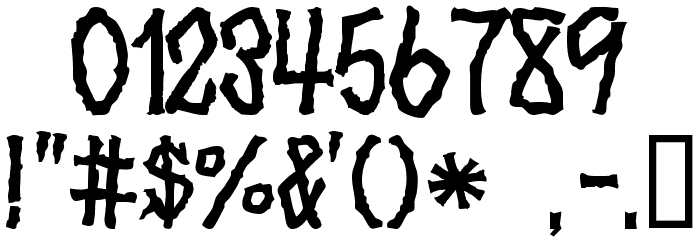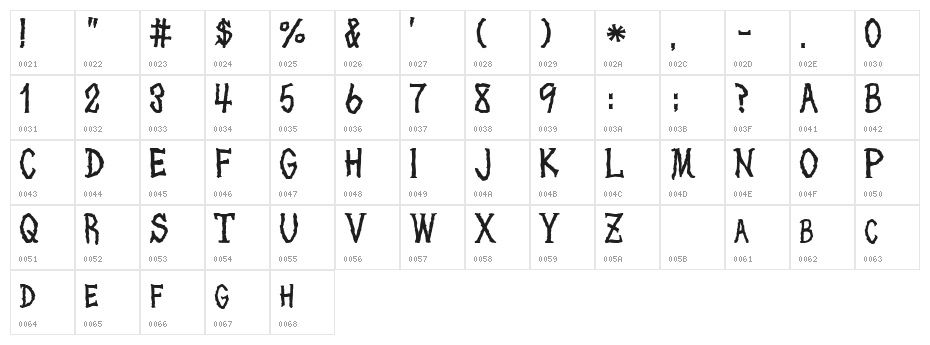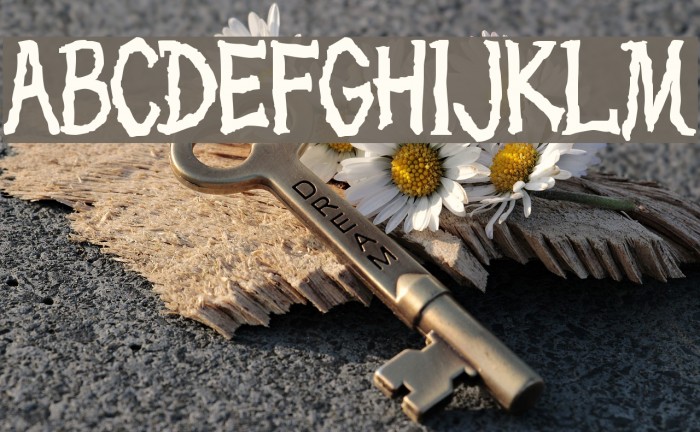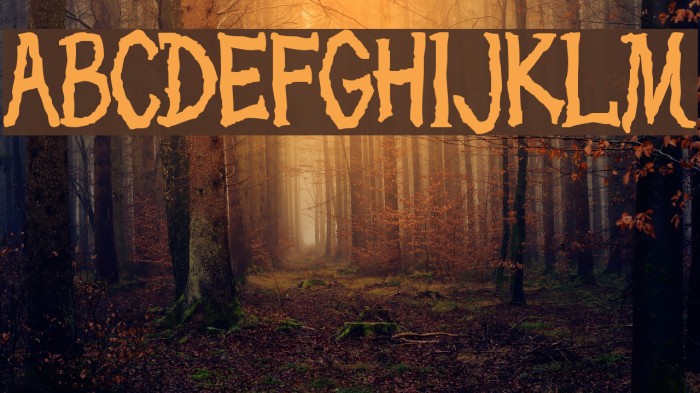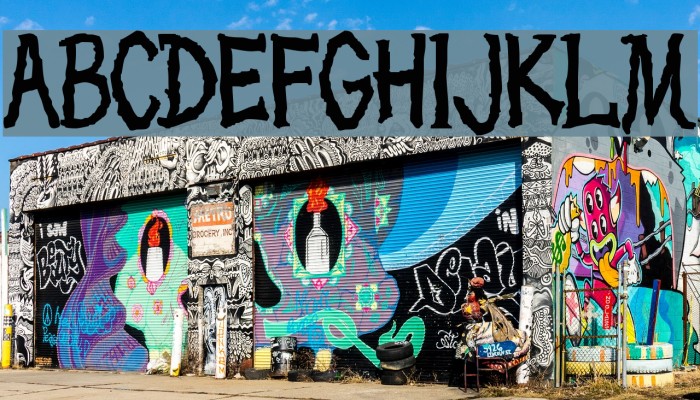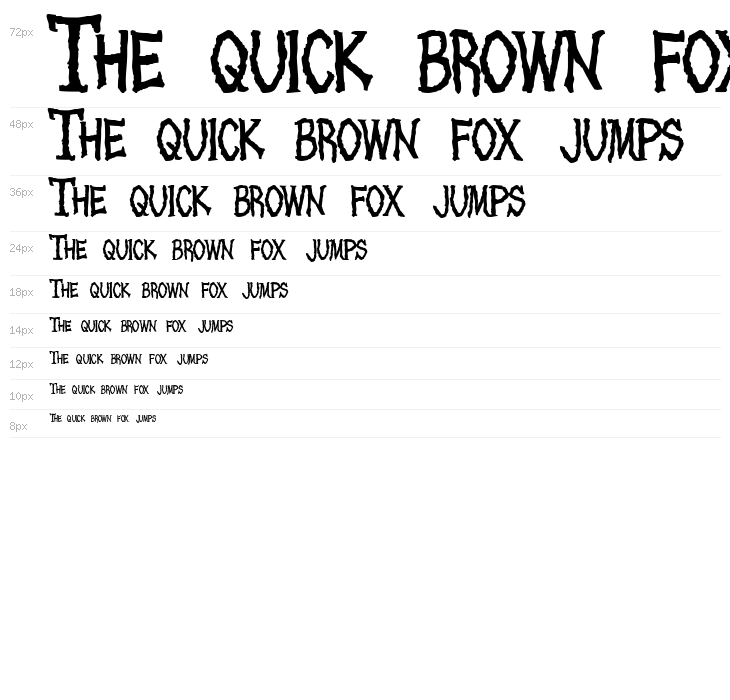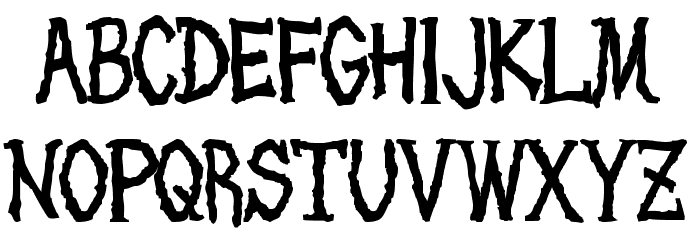
Dogs Font
Dogs Description
This font features a rugged, hand-drawn style with irregular edges and a bold presence. The characters have a distressed appearance, giving them a unique, organic feel. The uppercase and lowercase letters maintain a consistent style, with a slightly uneven baseline that adds to the casual, artistic vibe. The numerals and special characters follow the same design, ensuring a cohesive look across all text. This font is ideal for projects that require a touch of creativity and individuality, such as posters, album covers, or artistic branding.
| Proposed Projects | Perfect for posters, album covers, artistic branding, and creative projects. |